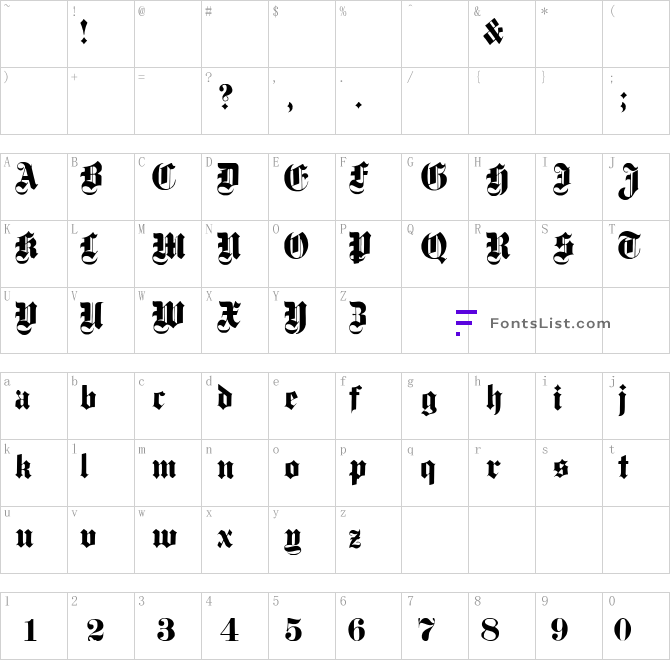
- Font Name:Dampfplatz Solid
Dampfplatz-Solid-Black.ttf is a very beautiful artistic font, Dampfplatz-Solid-Black.ttf is widely used in the design and printing of various books and pictures,Dampfplatz-Solid-Black.ttf has a strong visual impact,Dampfplatz-Solid-Black.ttf is a commonly used font in newspapers, magazines and books, and is used in posters, e-commerce Poster design, store design, logo design, font design and other fields.Dampfplatz-Solid-Black.